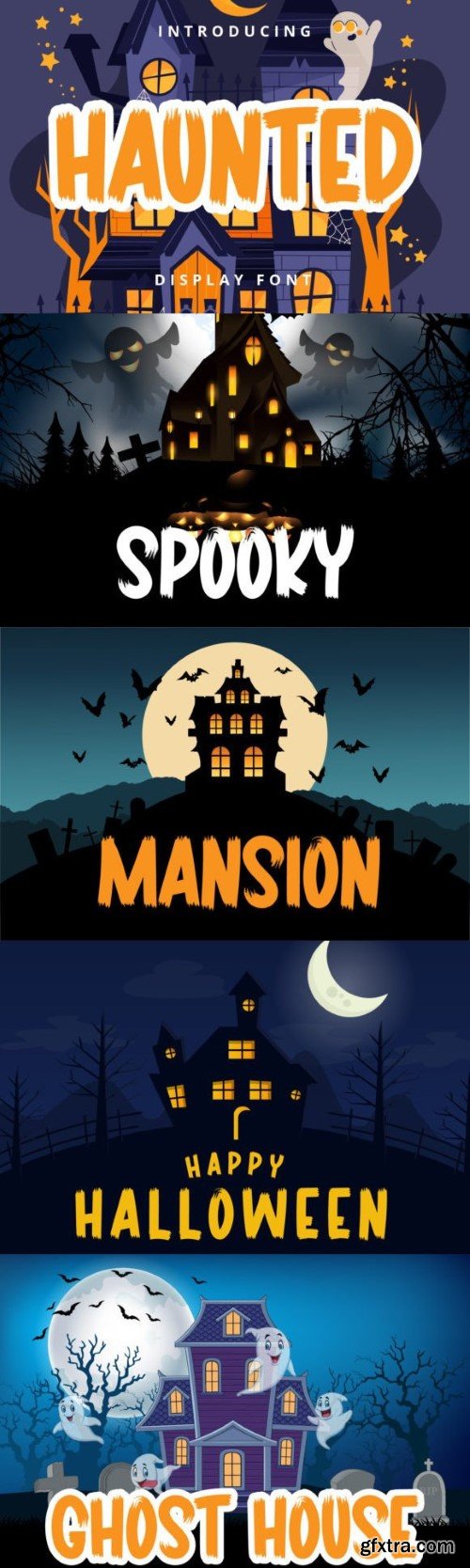
鬼魂字体
Haunted is a unique, friendly, and brush display font. Embodying authenticity and fun, this font is perfect for halloween themed designs, especially when combined with bright colors.